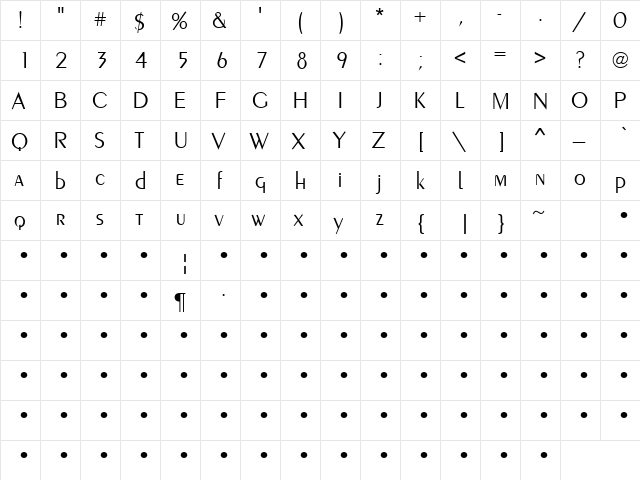
QTPeignoir-Lite Regular
Design Context for QTPeignoir-Lite Typeface
QTPeignoir-Lite offers clean, dependable letterforms without strong stylistic allegiance, making it a practical choice for designers who need flexibility.